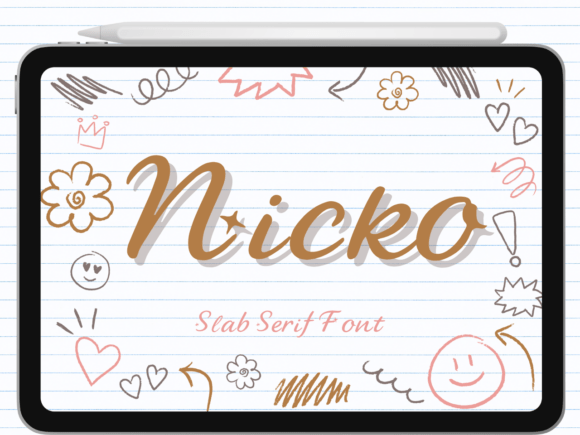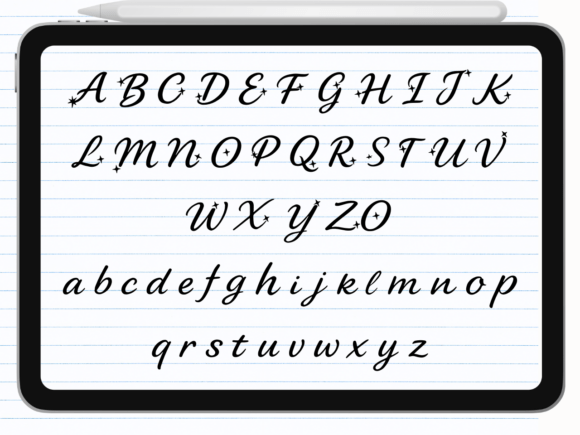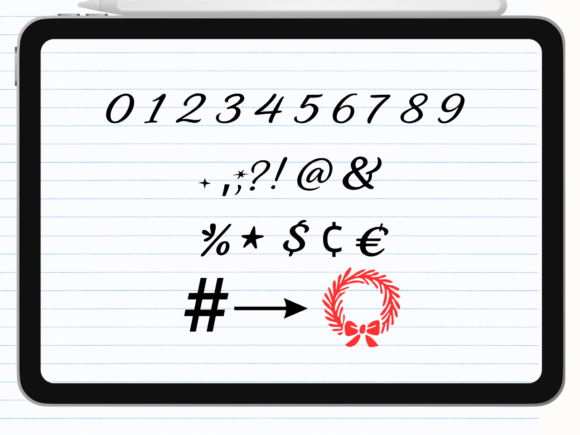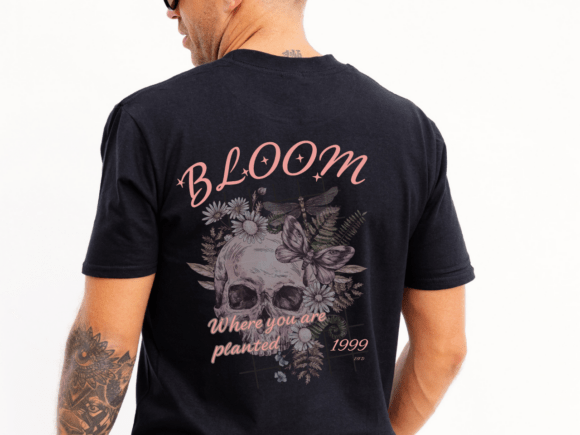
Nicko Font
About the Nicko Font
The Nicko Font offers a perfect balance of form and function for your design needs. Nicko is an exquisite handwritten font, masterfully designed to become a true favorite. It maintains its classy calligraphic influences while feeling contemporary and fresh. Fall in love with it and bring your projects to the highest levels!
Nicko’s elegant yet contemporary style makes it ideal for headlines, short-form text in branding materials, invitations, and packaging design where its refined calligraphic feel adds a touch of sophistication. It excels in creating a sense of luxury or handcrafted quality. However, its highly decorative nature makes it unsuitable for body text or UI elements; the intricate details would become illegible and distracting at smaller sizes.
Pairing Nicko effectively requires considering its inherent elegance. A clean, geometric sans-serif like Montserrat or a neutral serif such as Lato would provide a strong, readable contrast, grounding the design and preventing visual overload. For a more playful feel, a light script font could complement Nicko, but should be used sparingly to avoid competition for attention.
Nicko possesses a sophisticated and slightly whimsical personality. Its overall mood is upscale and friendly, making it perfect for brands focused on artisanal goods, boutique services, or events requiring an air of refined charm.
Nicko Font Usage Examples
Nicko Font Example